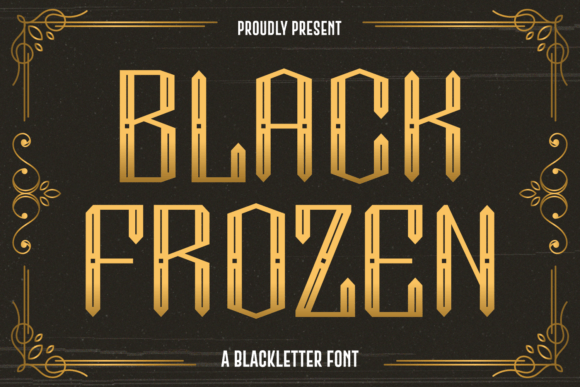
The Chilling Power of Typography: Unlocking the Black Frozen Font
Have you ever found yourself wandering through a snow-covered forest, the crunch of frost beneath your feet the only sound breaking the silence? It’s moments like these that spark creativity, and for designers, the right font can transport you to a world of icy elegance. For those seeking to capture the drama and mystique of the winter season, the Black Frozen Font is a game-changer.
With its bold, dramatic blackletter style and sharp, icy edges, the Black Frozen Font is the perfect choice for gothic, fantasy, or winter-themed designs. Whether you’re crafting a logo, poster, or branding that demands a striking, chilling impact, this font combines medieval elegance with frosty, modern accents to create a truly unforgettable look.
- Unique Characteristics: The Black Frozen Font features a unique, icy aesthetic with intricate details and a sense of movement, making it perfect for designs that require a touch of elegance and sophistication.
Black Frozen Font Review
As a designer, I was initially drawn to the Black Frozen Font due to its unique aesthetic. ✨ The font’s bold, icy feel has a certain appeal that could work well for projects that require a touch of sophistication and minimalism. The font’s versatility also allows for a wide range of uses, from headings to body text.
Some of the font’s key features include:
- Sharp, geometric shapes that create a sense of depth and dimension
- A wide range of character sets, including international characters and punctuation
- High contrast between the font’s black background and white text, making it easy to read
However, I did encounter some limitations. ⚠️ The font’s overall design can come across as cold and uninviting, which may not be suitable for projects that require a more approachable tone. Additionally, the font’s lack of subtle texture and nuance may make it difficult to use in situations where a more nuanced aesthetic is required.
Overall, the Black Frozen Font is a solid choice for designers who are looking for a bold, modern font with a lot of character. However, its limitations may make it less suitable for projects that require a more subtle or approachable tone.
Black Frozen Font is ideal for use in bold and dramatic headings, as well as for creating a sense of mystery and elegance in your designs. Some common use cases include:
– Creating a sense of luxury and sophistication in branding and marketing materials.
– Adding a touch of drama and mystery to film and video titles.
– Using in wedding invitations and other special occasion stationery.